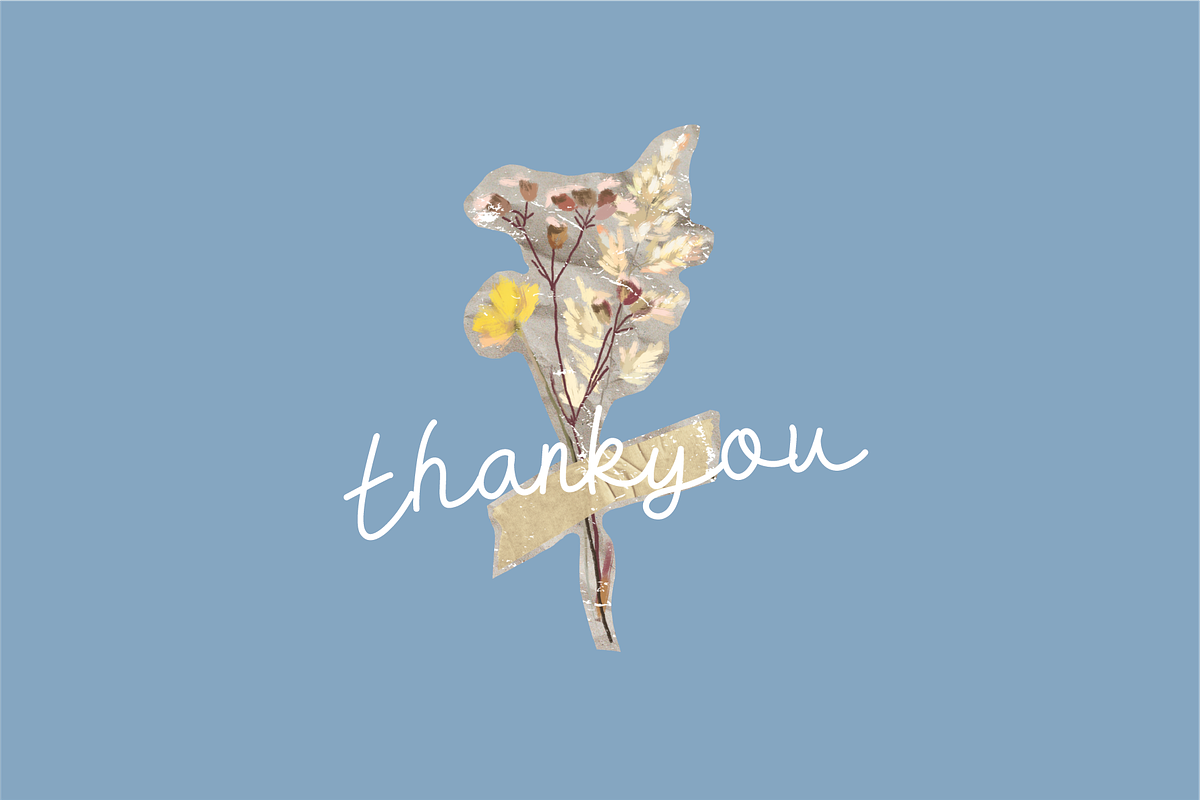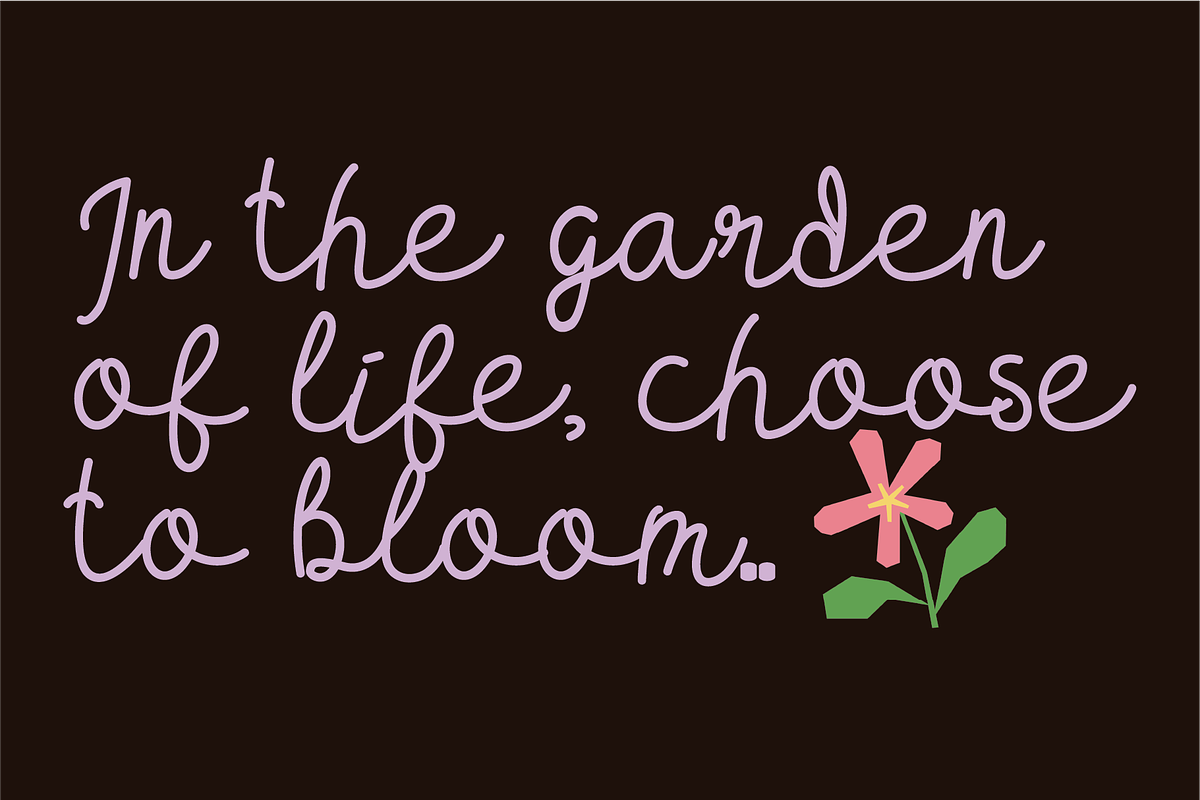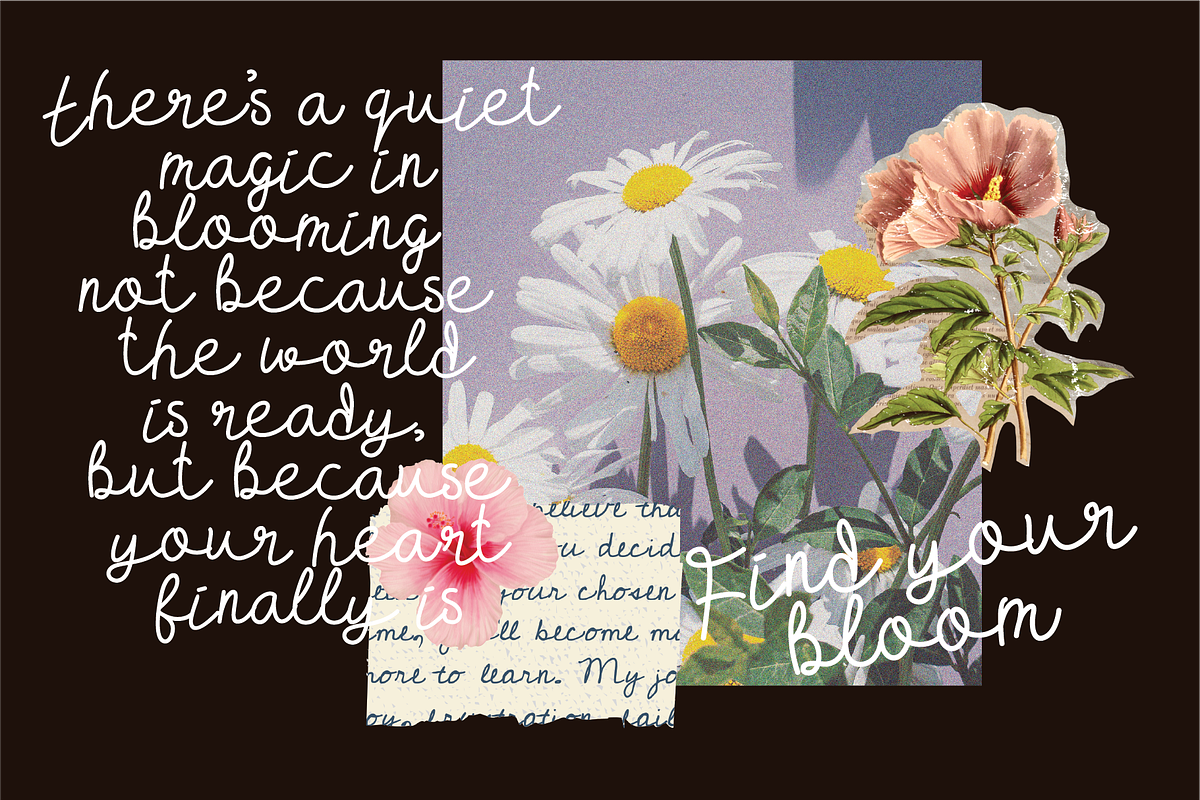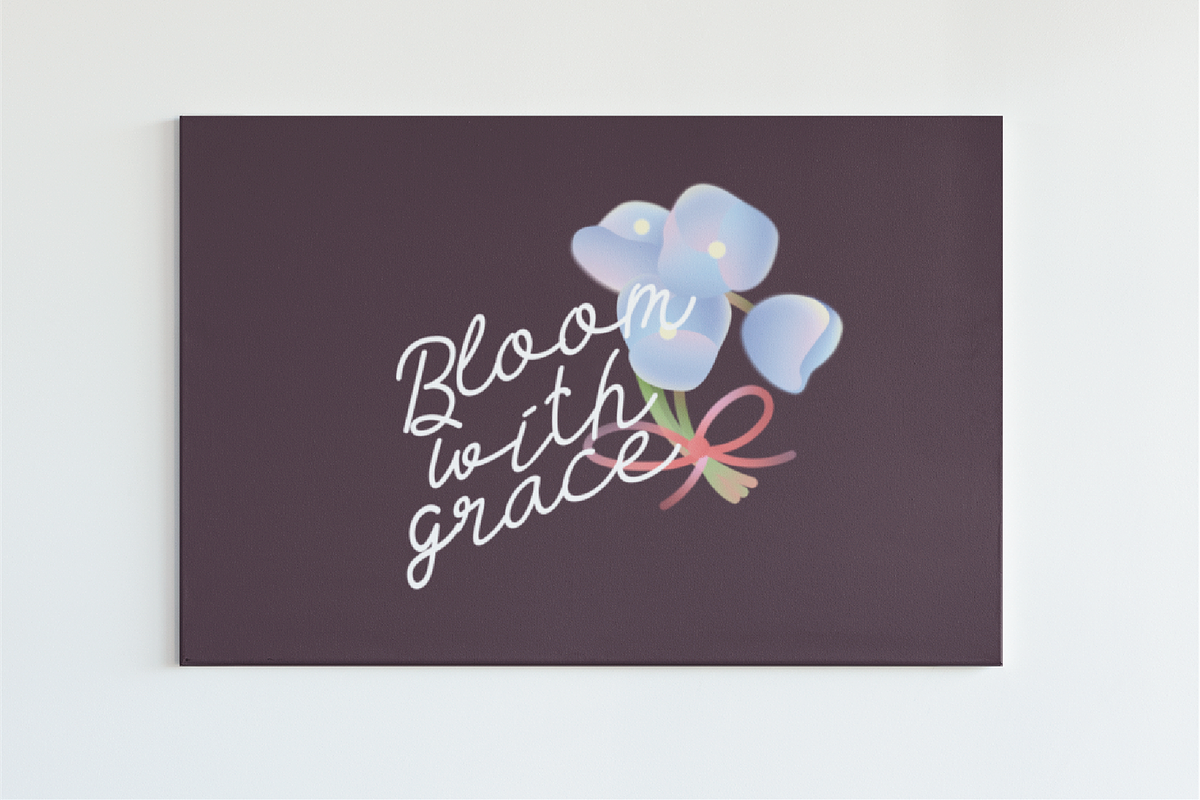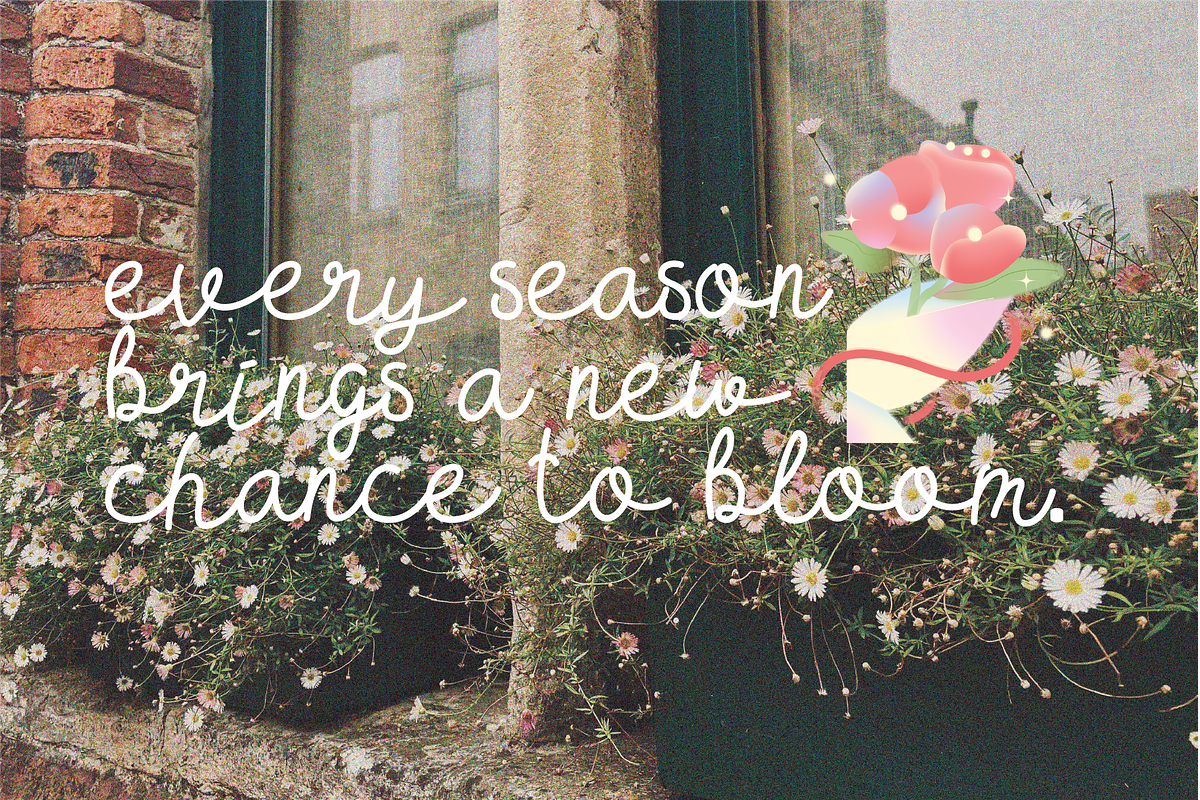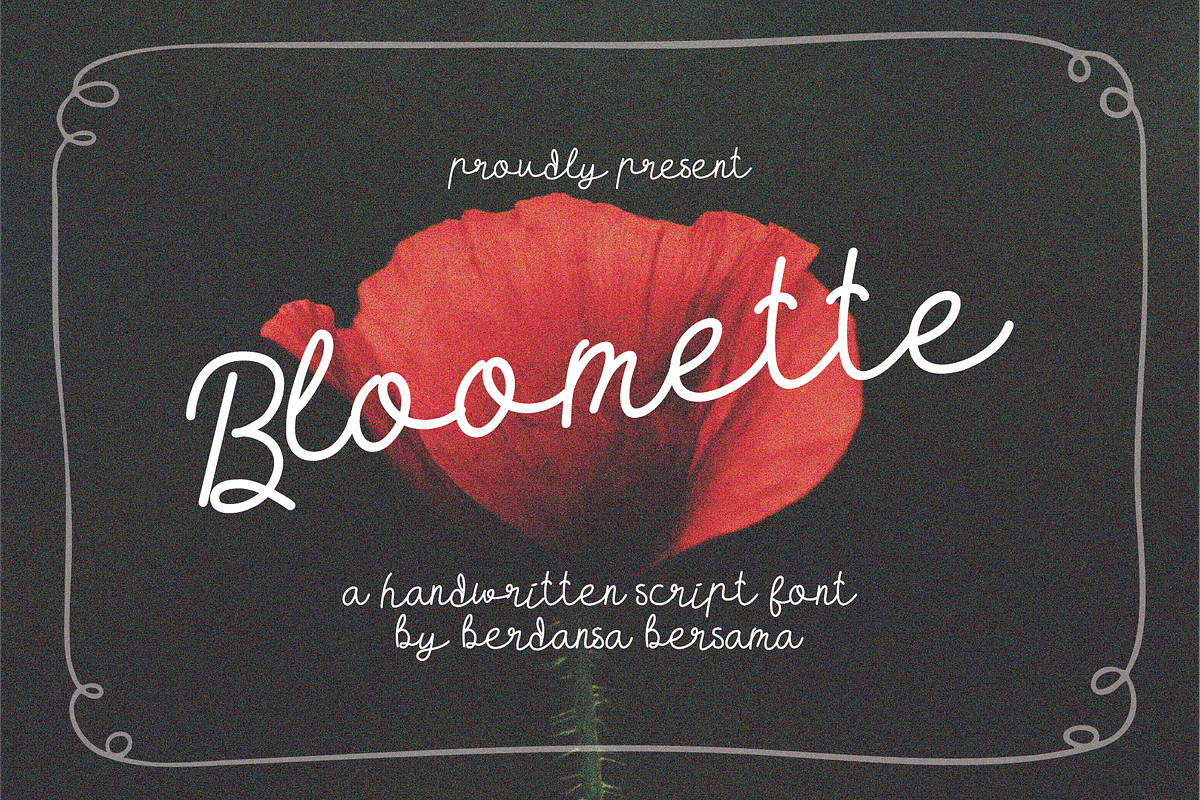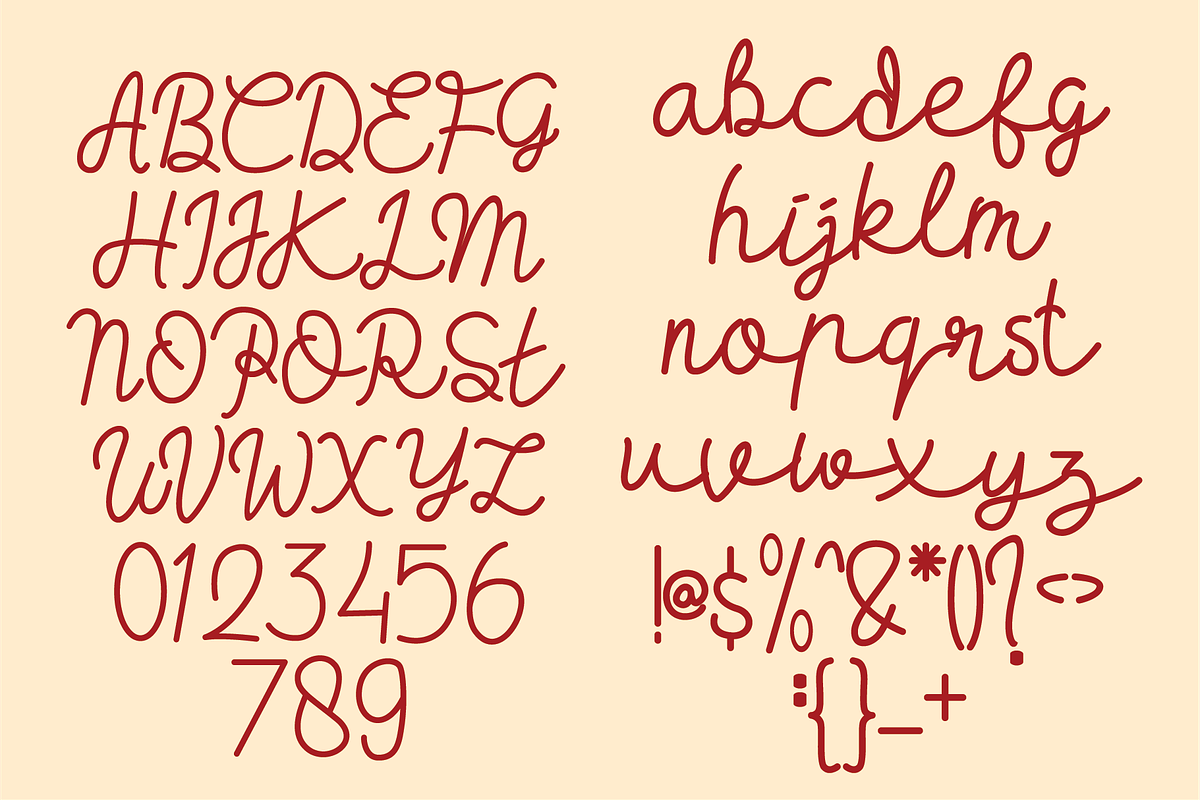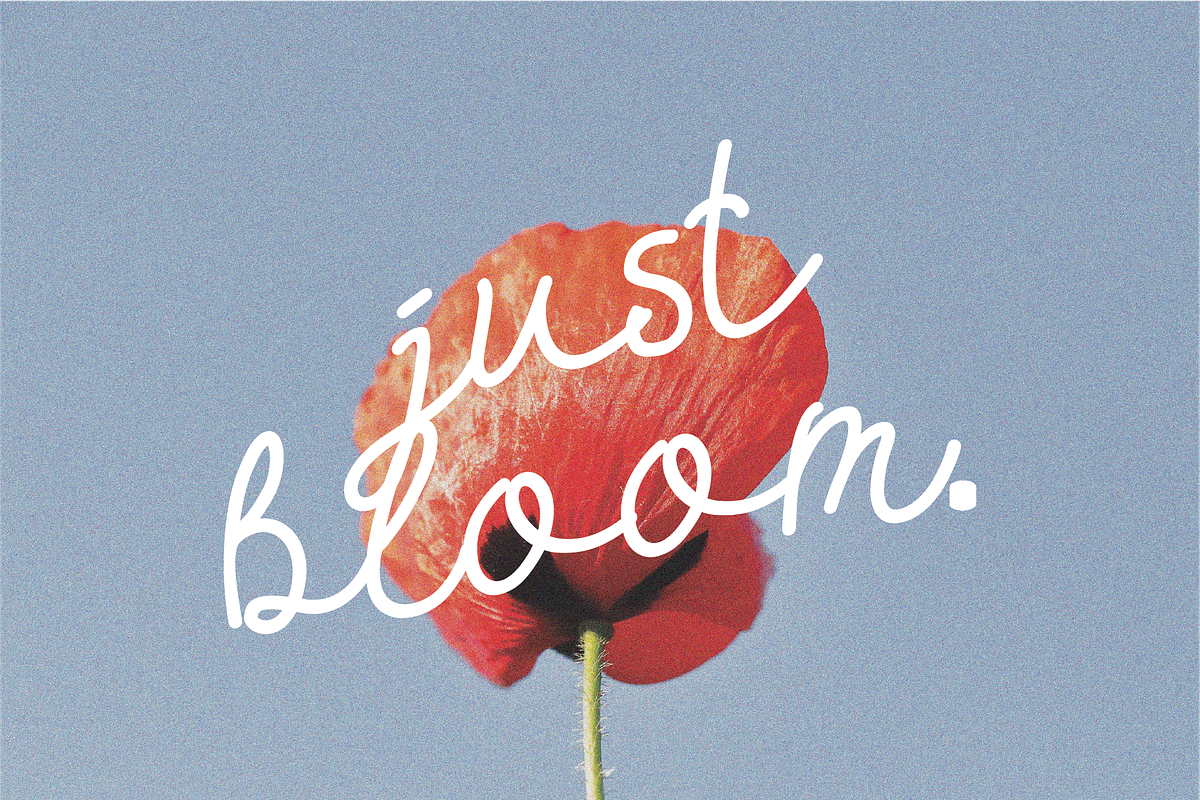
Bloomette Handwritten Script Font
Bloomette is a modern handwritten script font that captures a light, graceful, and feminine aesthetic. With its smooth curves, even rhythm, and delicate letter connections, it gives a sense of elegant simplicity and natural flow—like handwriting penned with confidence and care.